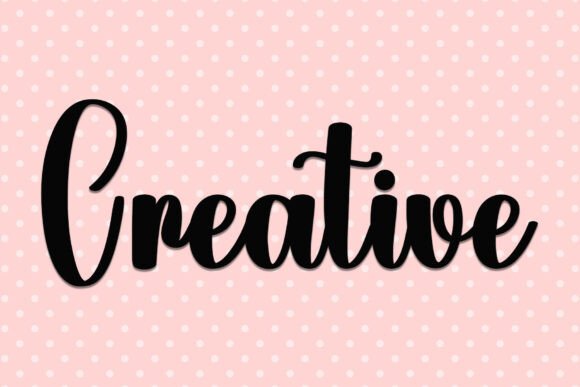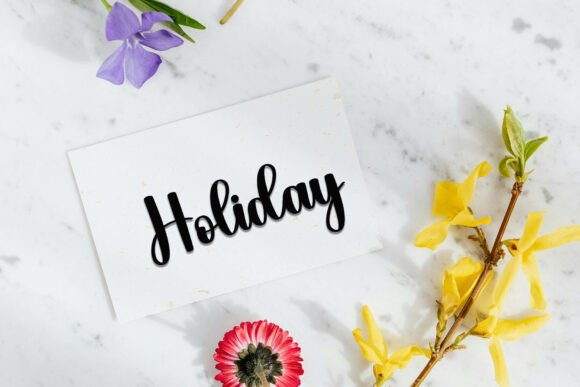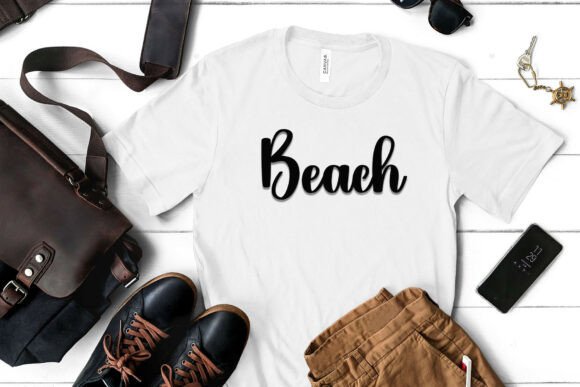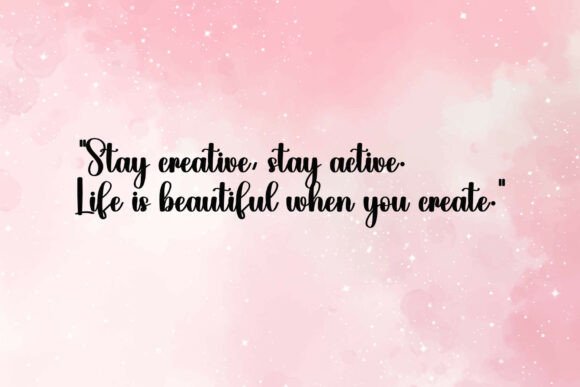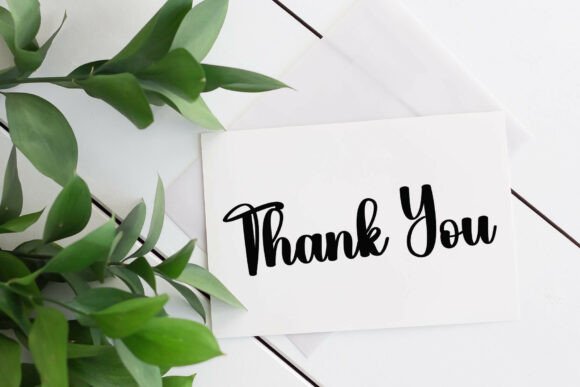
The Elegant Charm of Bubble Font: A Designer’s Delight
An Honest Review of Bubble Font
- ✨ Timeless Elegance: Bubble Font has a classic, sophisticated feel to it, making it perfect for high-end designs.
- ✅ Contemporary Atmosphere: Despite its classic inspiration, the font has a modern twist that makes it suitable for contemporary designs.
- 💯 Impeccable Form: The font’s attention to detail and precise craftsmanship make it a joy to work with.
While Bubble Font is an excellent choice for many designs, there are a few things to keep in mind: 🤔
- ⚠️ Limited use in body text: Due to its elegant and cursive nature, Bubble Font might not be the best choice for long blocks of body text.
- ⚠️ Requires attention to spacing: To get the most out of Bubble Font, you may need to adjust the spacing between letters to achieve the desired effect.
The Backstory of Bubble Font
Bubble Font was inspired by timeless classic calligraphy, with a modern twist. Its creator aimed to craft a font that would add elegance and class to any design project. 💫
Q: What is Bubble Font?
A: Bubble Font is a trendy handwritten font with a contemporary atmosphere and impeccable form, inspired by timeless classic calligraphy.
Q: Is Bubble Font suitable for body text?
A: While Bubble Font is elegant and beautiful, it may not be the best choice for long blocks of body text. It’s better suited for headings, titles, and short paragraphs.